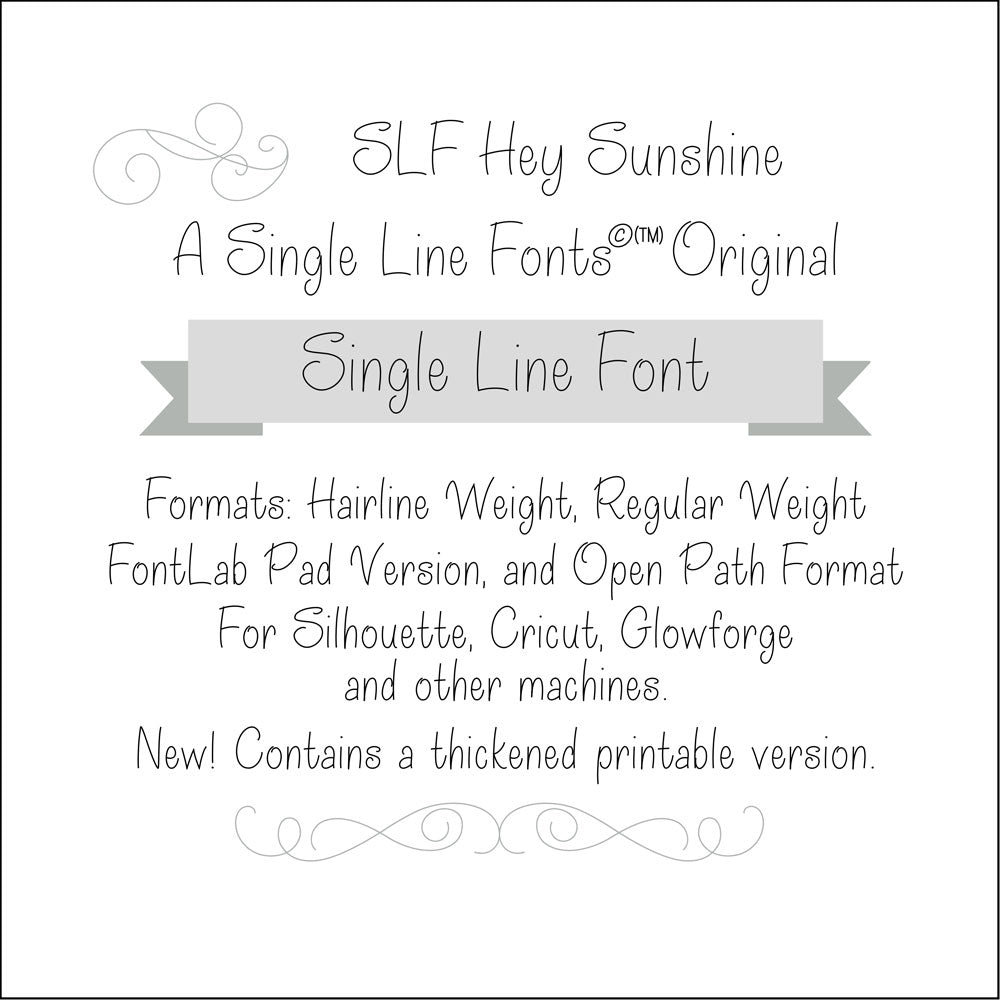
SLF Hey Sunshine – Single Line Print Font for Glowforge, Cricut & CNC
SLF Hey Sunshine is a bright, friendly single line print font with smooth, easy-to-read lettering. Its clean monoline style makes it perfect for engraving, scoring, sketch pens, CNC projects, labeling, journaling, and cheerful craft designs.
This font includes a complete character set with uppercase and lowercase letters, numbers, punctuation, and accented characters for multilingual support.
• Labels, cards, kids’ crafts, cheerful print projects